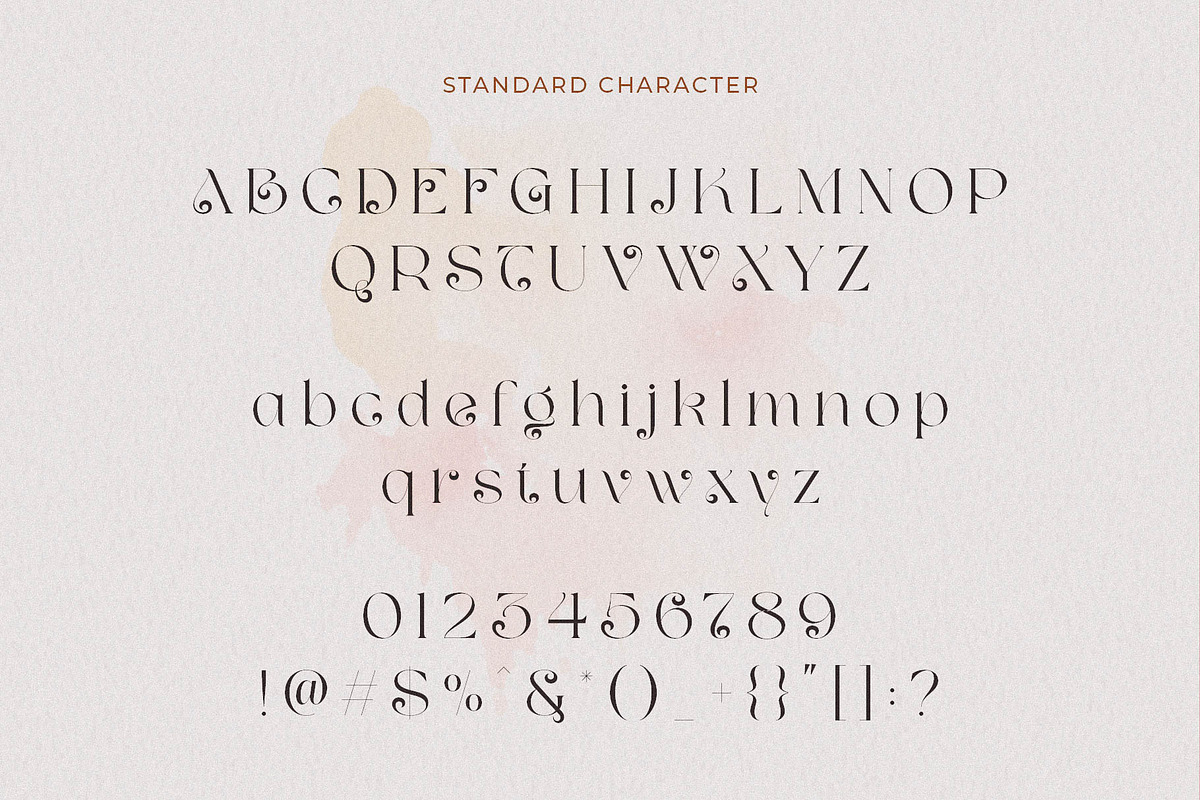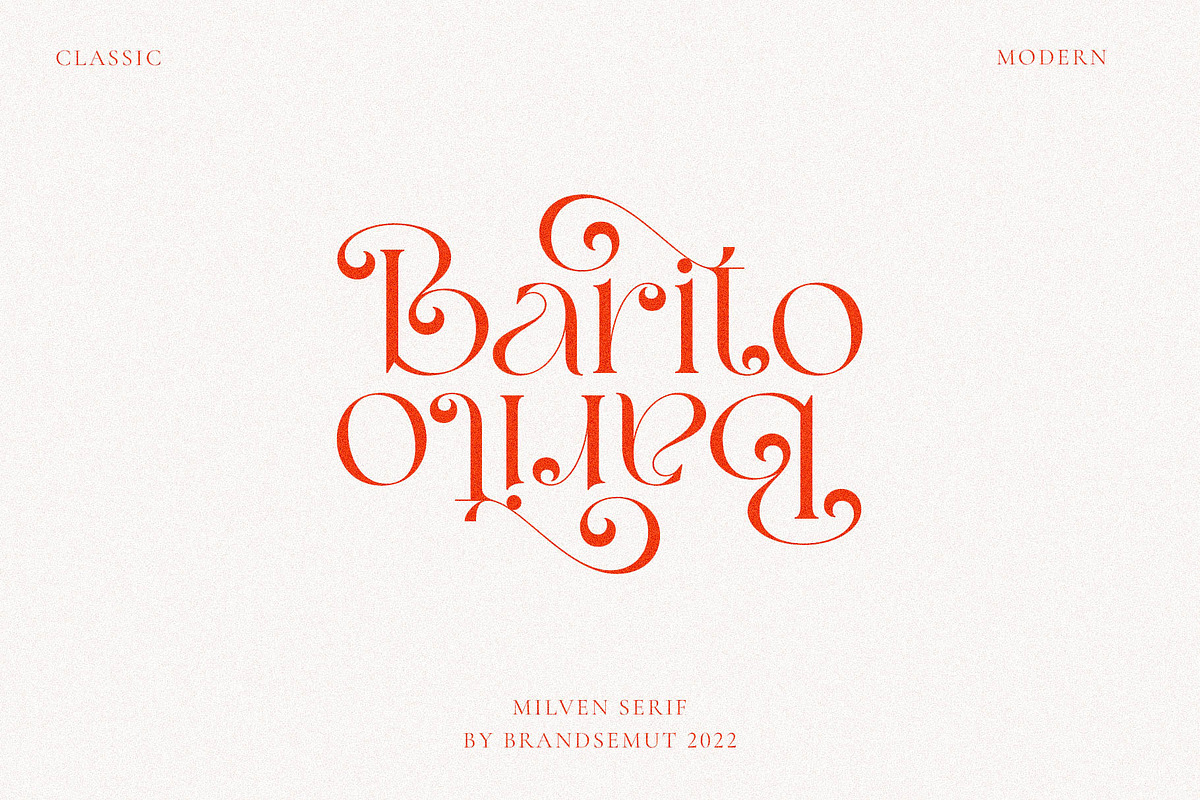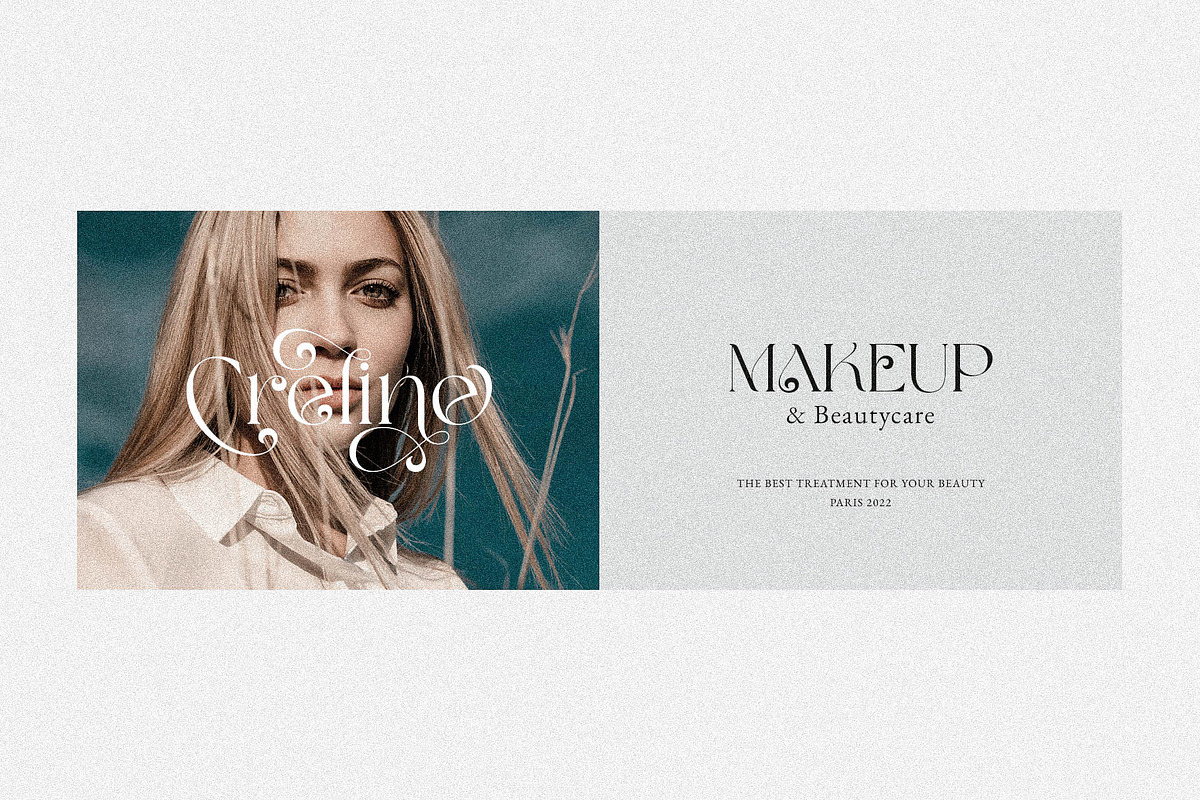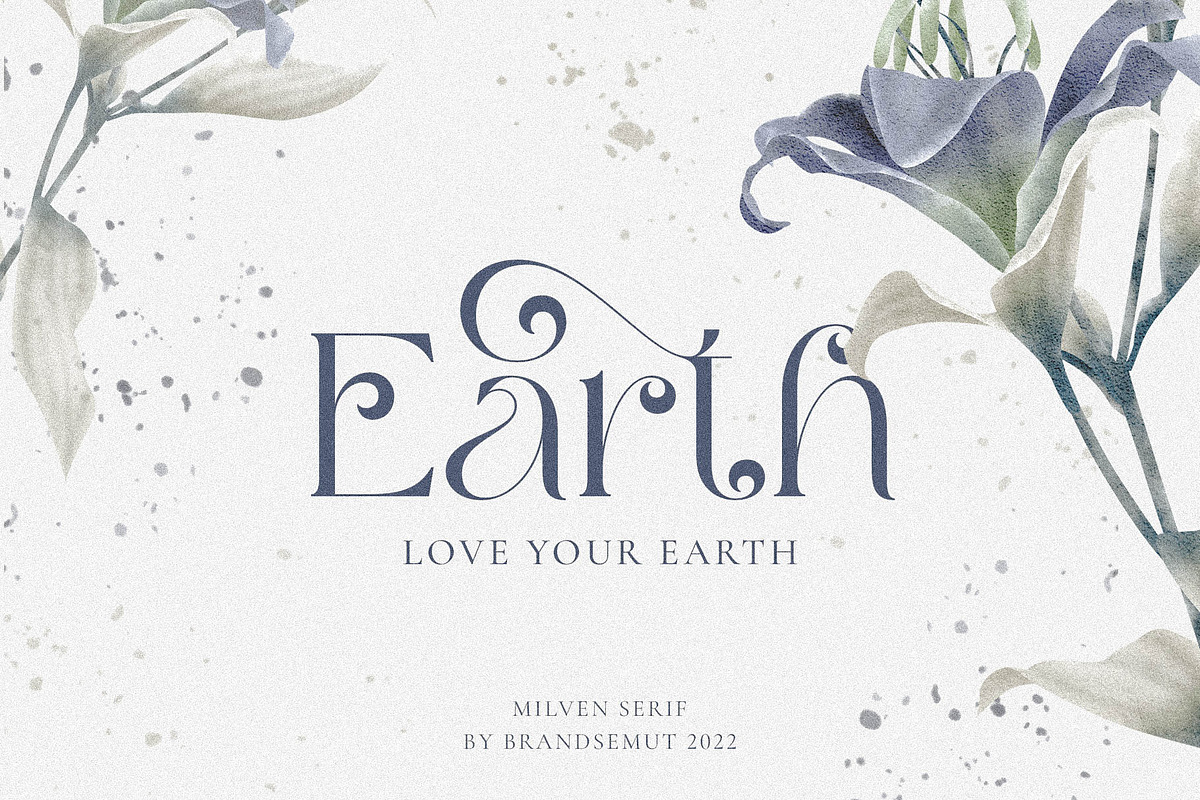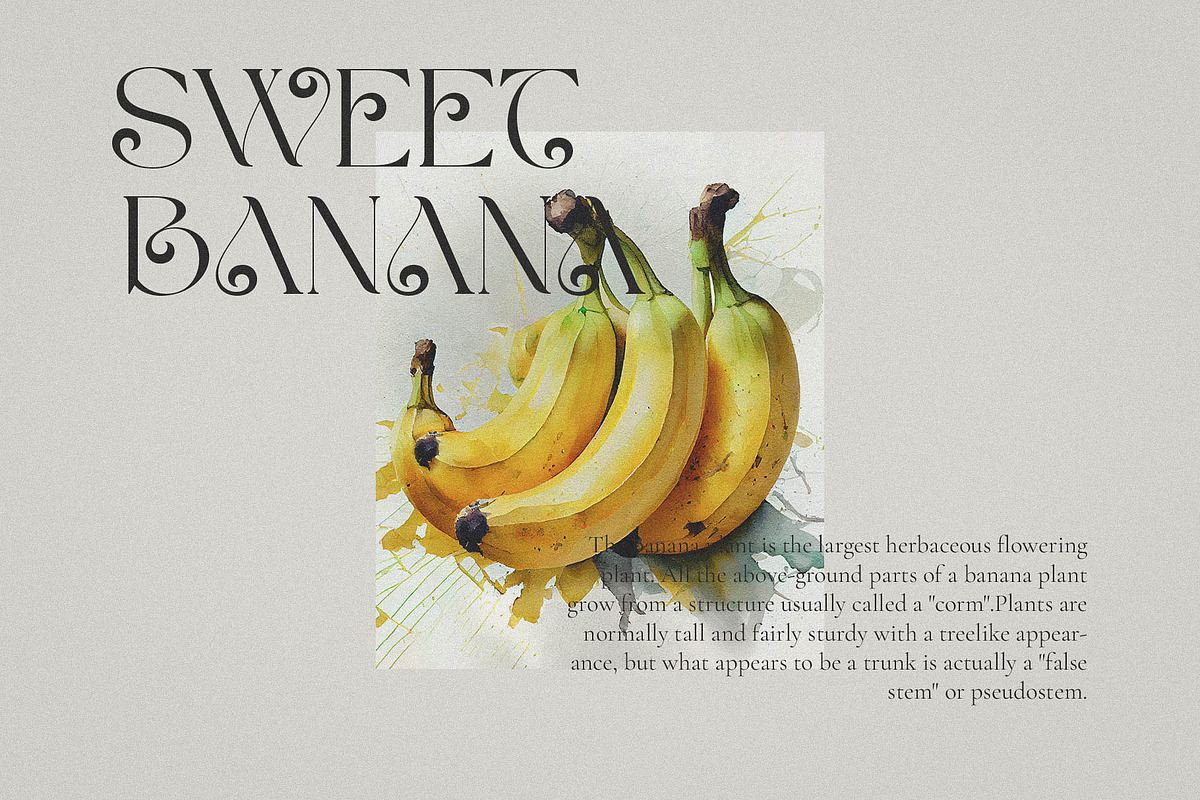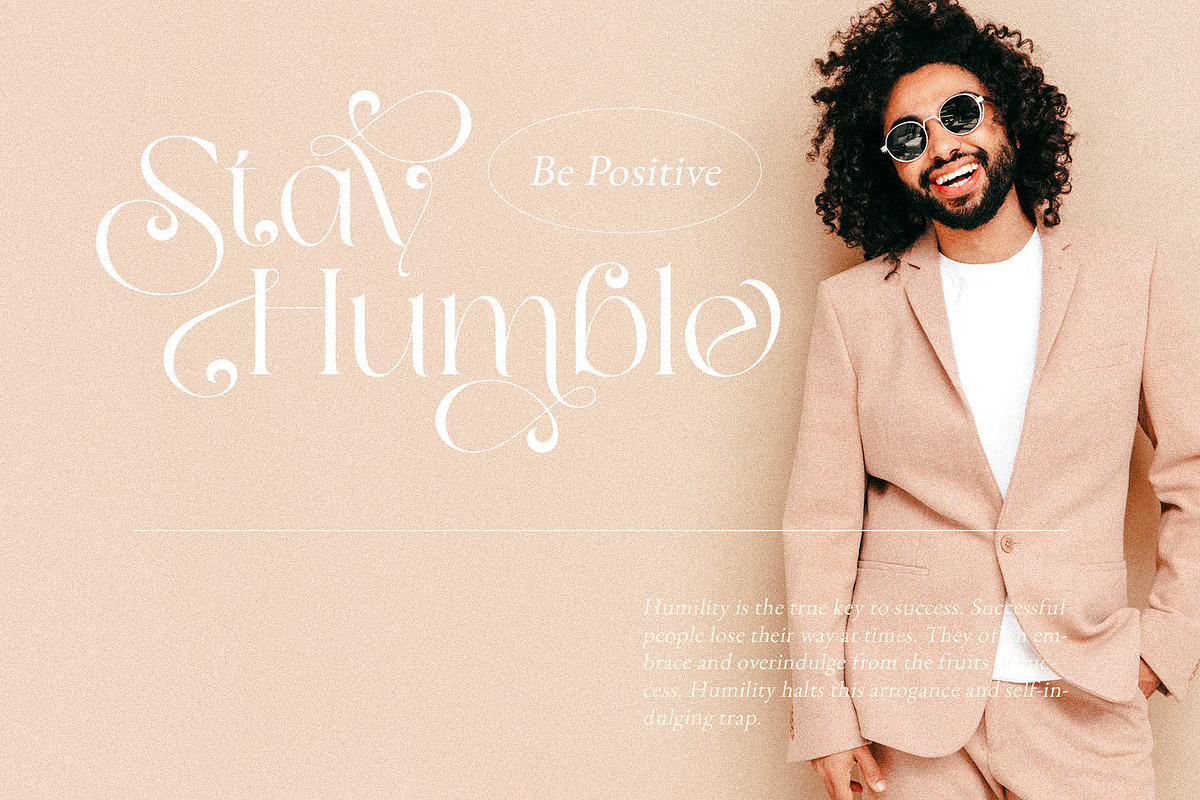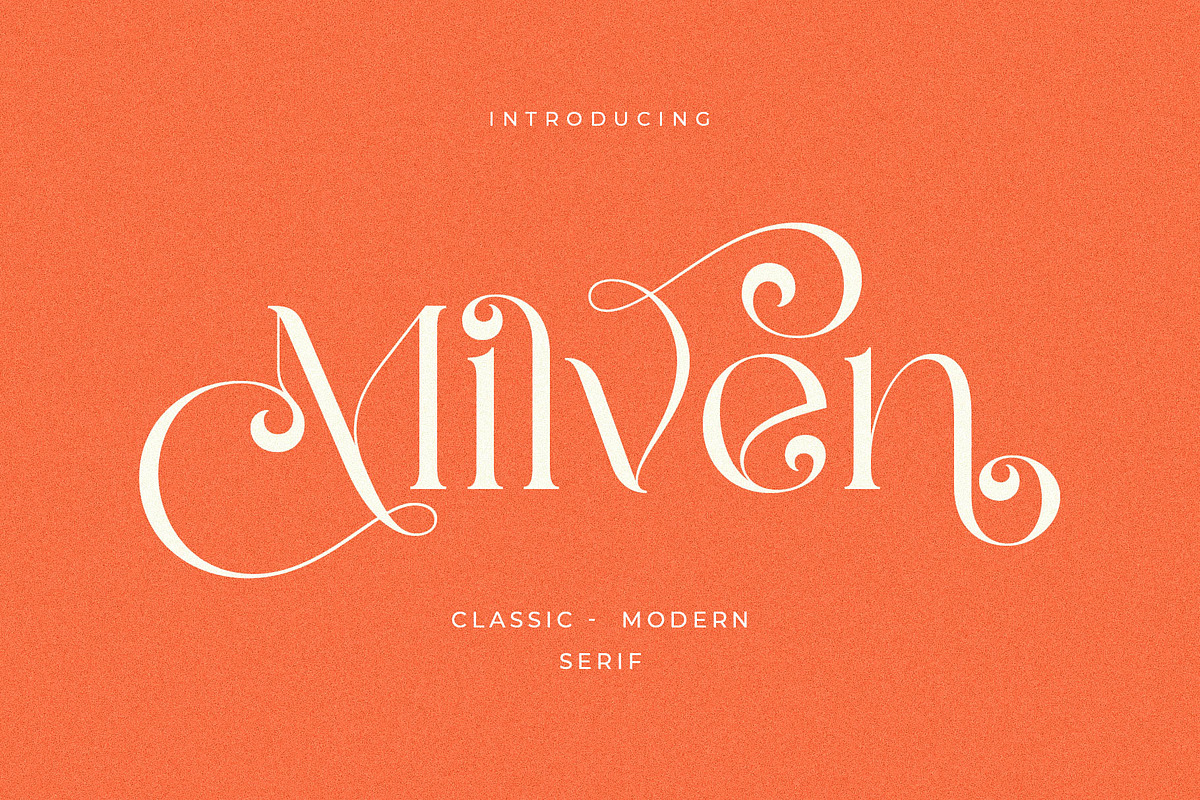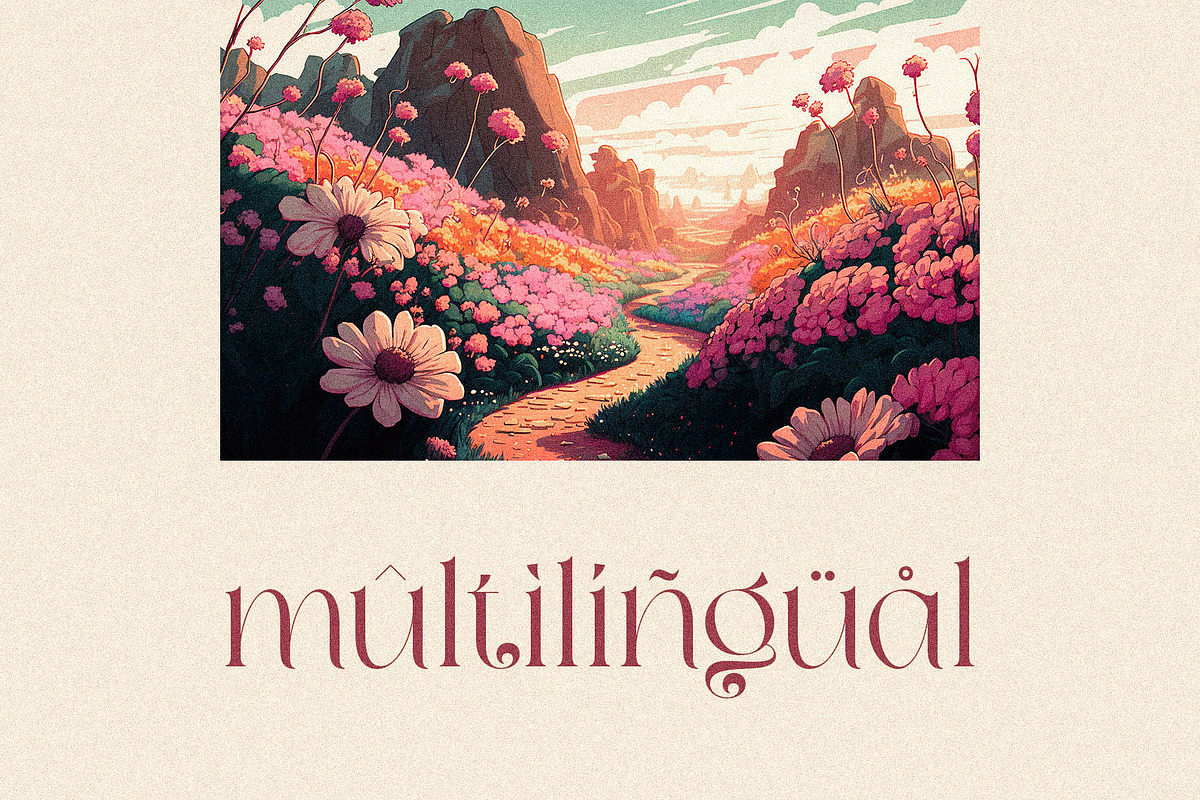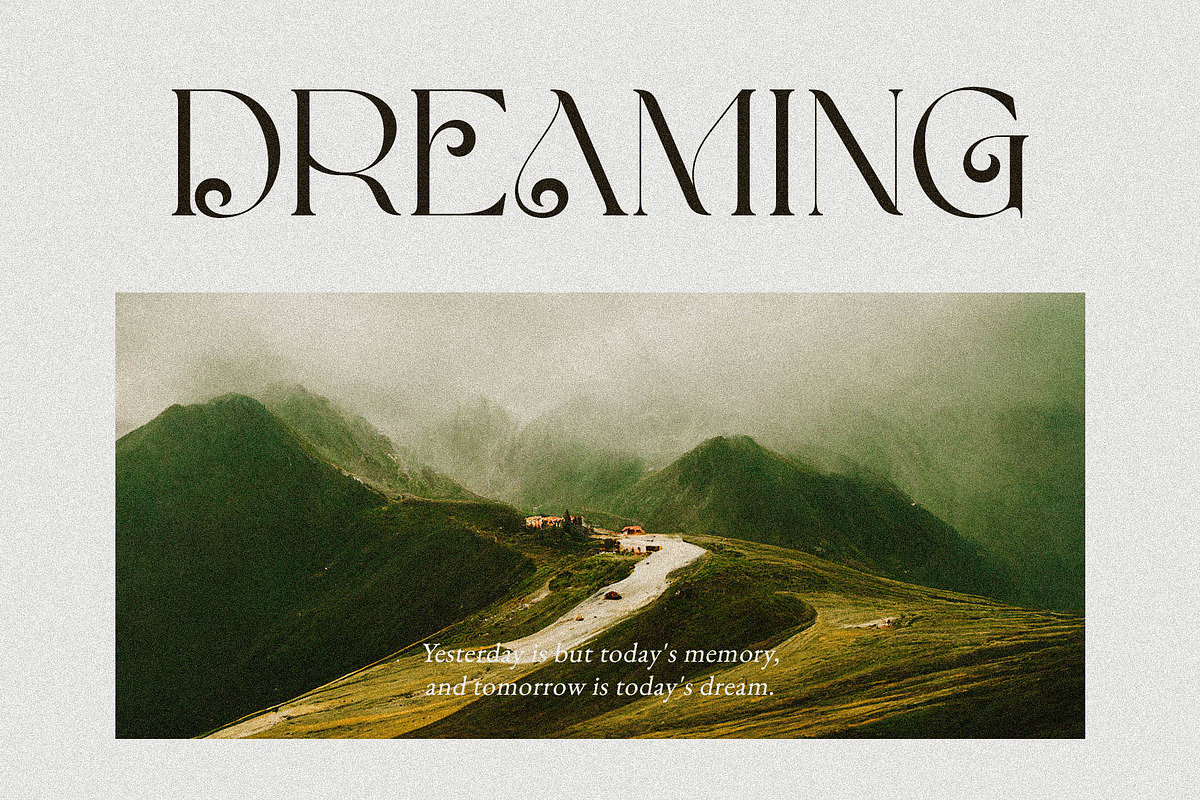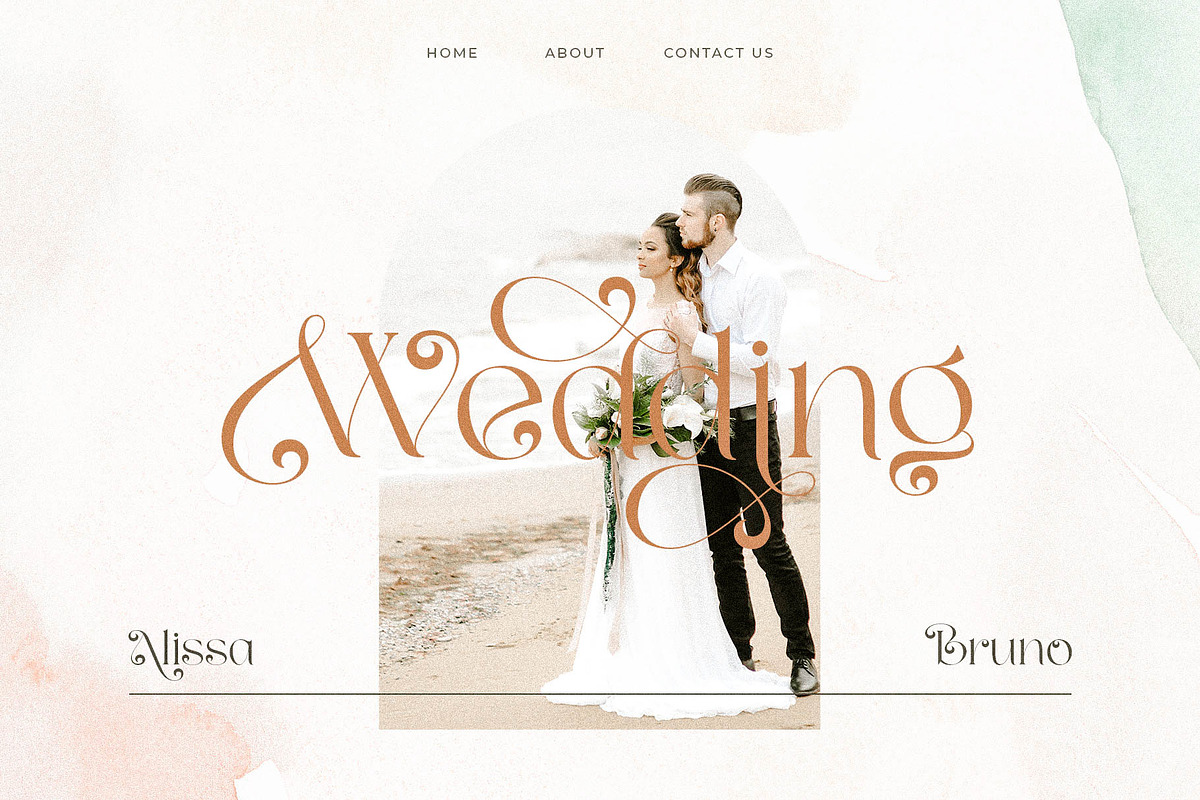
Milven || Modern Classic Serif
Introducing Milven Modern Classic Serif. Milven is a classic and modern display serif, best used as a display for headings, logos, branding, magazines, product packaging and invitations. Milven equipped with Ligature and many Alternates and come with clean lines and smooth curves give any project an extra touch of class.